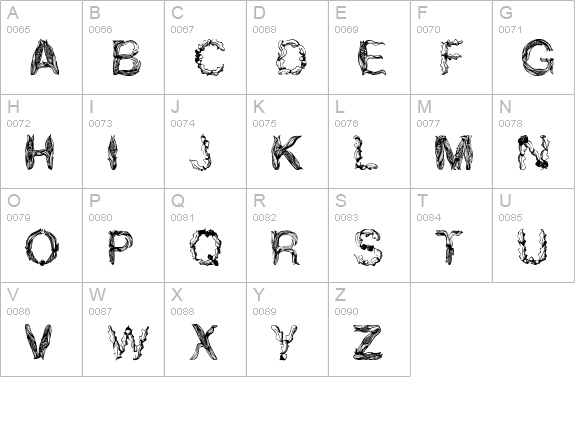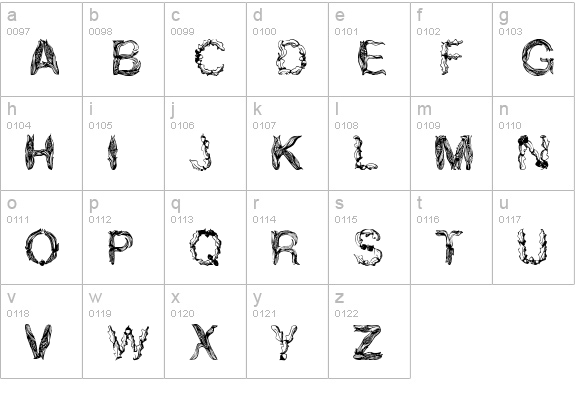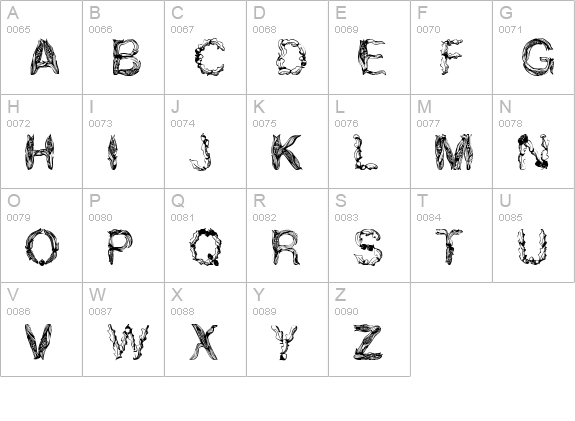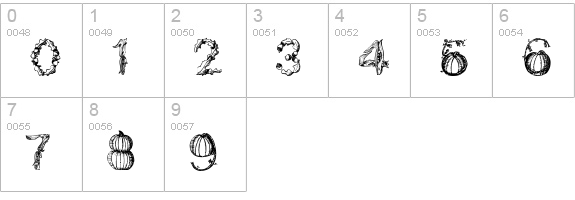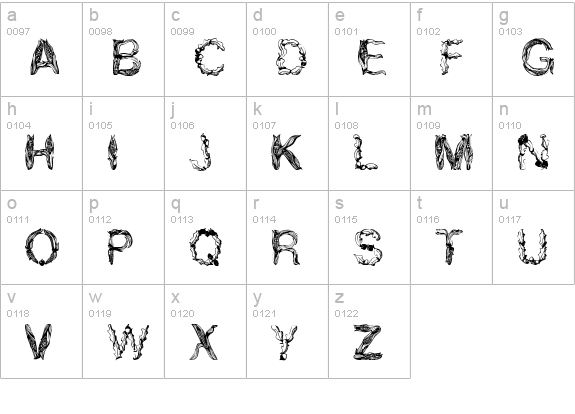
Autumn Gifts Font Details
Autumn Gifts font is a whimsical and charming typeface that perfectly captures the essence of the fall season. With its delicate curves and playful details, this font is sure to add a touch of warmth and coziness to any design project. Whether you're creating greeting cards, invitations, or social media graphics, Autumn Gifts font will bring a sense of nostalgia and beauty to your work. The best part? Autumn Gifts font is available for free download at FontsMarket.com. So go ahead and bring a little bit of autumn magic to your designs with this lovely and versatile font.